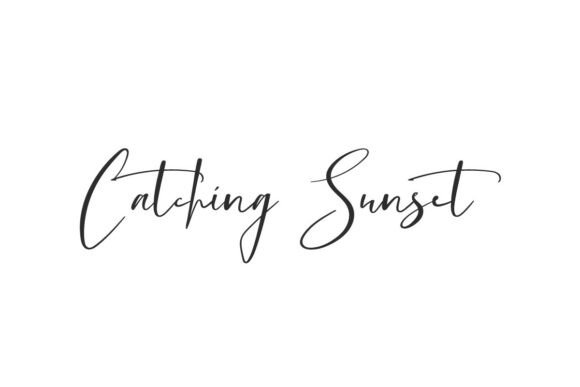
The Magic of Catching Sunset Font: A Designer’s Delight
I’ll never forget the design project that led me to discover Catching Sunset Font. I was working on a beachside retreat’s branding, struggling to find the perfect font that captured the relaxed yet sophisticated vibe of the client’s business. The client wanted something that would transport their audience to a serene coastal getaway, but I was stuck in a design rut. That’s when I stumbled upon Catching Sunset Font, and it was love at first sight! ✨
- ✨ Elegant and Whimsical: Catching Sunset Font has a unique blend of script and signature styles that adds a touch of personality to any design project.
- ✅ Smooth and Natural Flow: Each character has a smooth, natural flowing stroke that makes it perfect for adding a personal touch to blogs, card design, covers, and more.
- 🌟 Readability and Versatility: The font’s fluid curves and varied letterforms mimic the natural rhythm of handwriting, while its clean, gentle lines ensure readability, making it ideal for both business and personal use.
While Catching Sunset Font is an amazing addition to any design project, there are a few things to keep in mind: 🤔
- ⚠️ Limited Use in Small Sizes: Due to its elegant and cursive nature, the font might not be the best choice for very small text sizes or body copy.
- ⚠️ Glyphs and OpenType Features: Some users might find the glyphs and OpenType features a bit tricky to navigate, especially if they’re new to using these features.
The Designer Inspiration Behind Catching Sunset Font
Catching Sunset Font was inspired by the serene and picturesque landscapes of beachside retreats. The designer aimed to capture the relaxed yet sophisticated charm of these coastal getaways in a font that would transport users to a world of tranquility and beauty. The result is a font that’s perfect for designs that need a touch of elegance and whimsy.
| Font Name | Catching Sunset Font |
| Author | NihStudio |
Q: What is Catching Sunset Font best used for?
A: Catching Sunset Font is perfect for designs that need a touch of elegance and whimsy, such as branding, advertising, card design, covers, and more.
Q: Is Catching Sunset Font easy to read?
A: Yes, Catching Sunset Font has clean and gentle lines that ensure readability, making it perfect for designs that require a clear and elegant message.